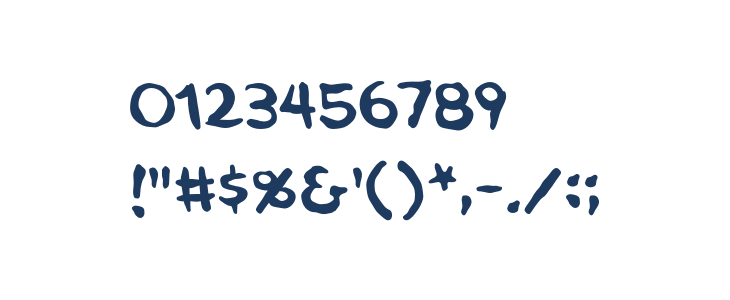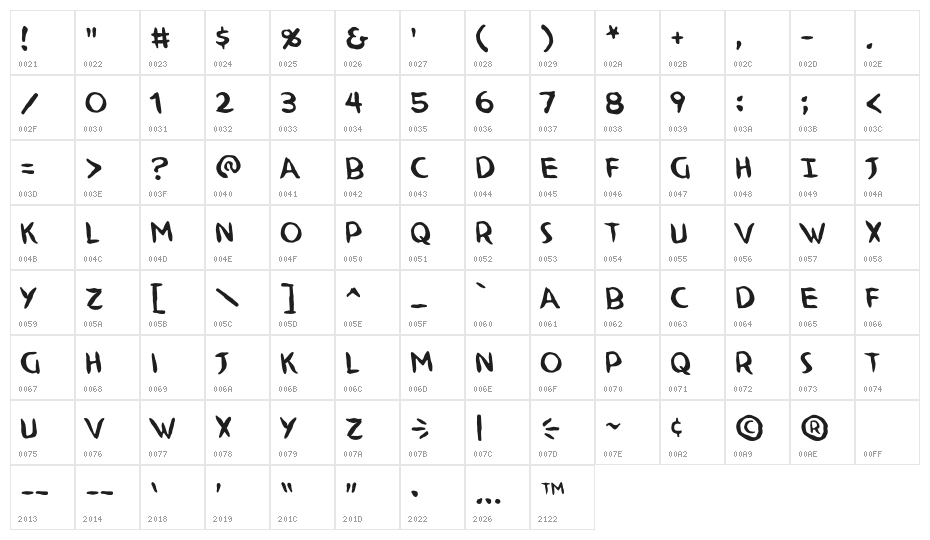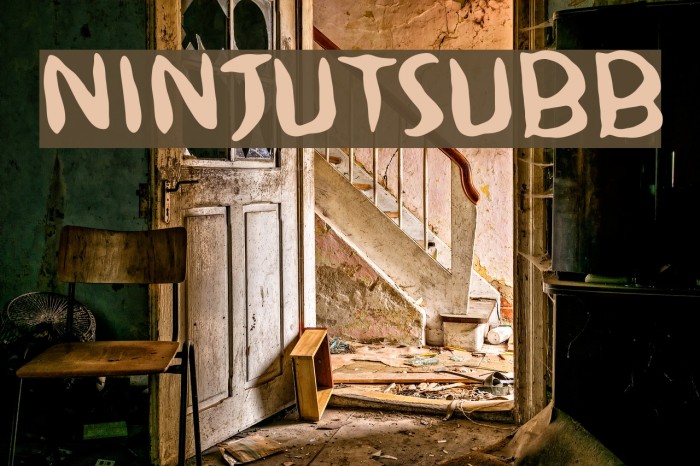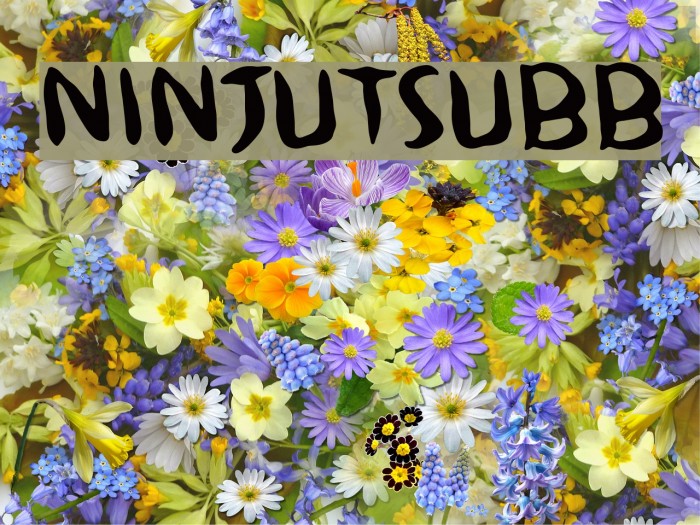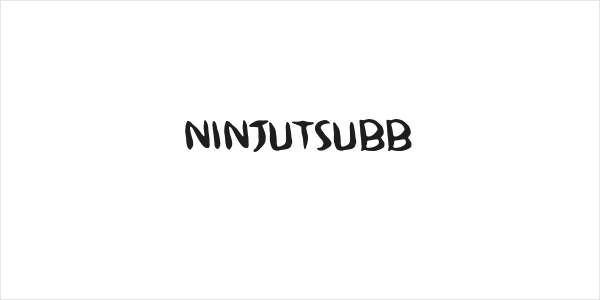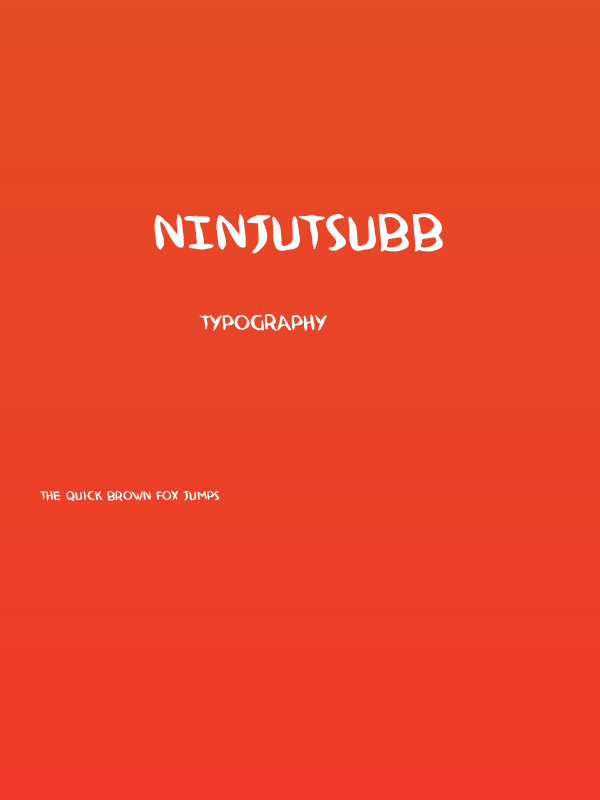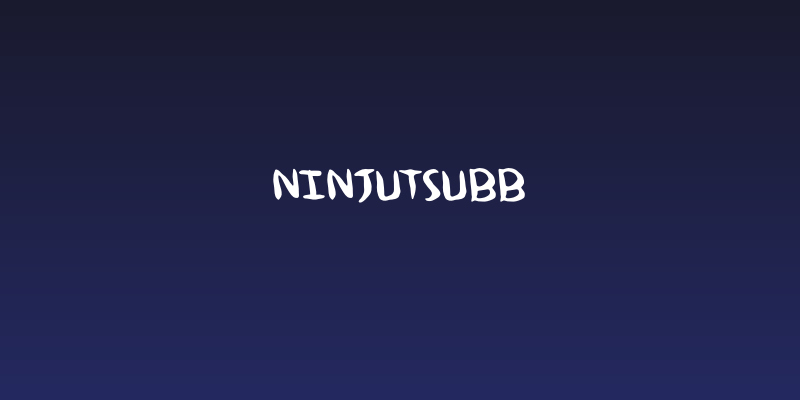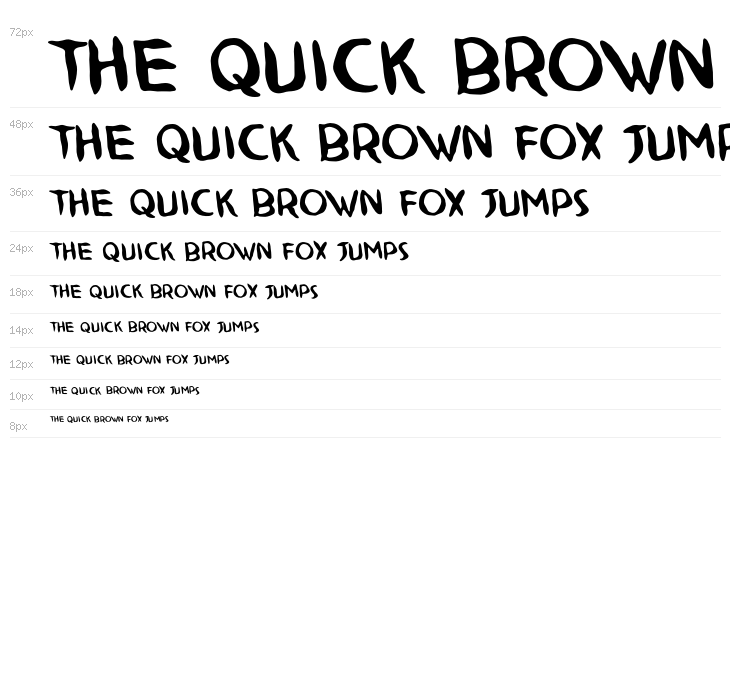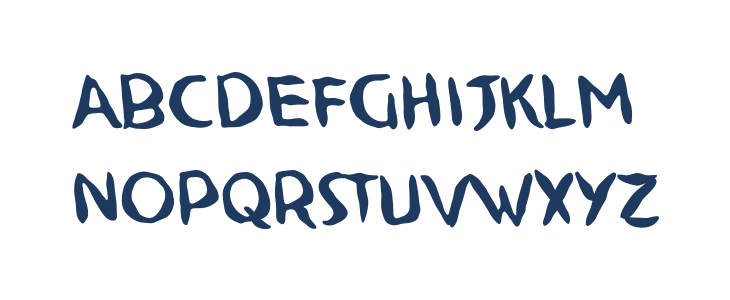
NinjutsuBB Font
NinjutsuBB Description
This font exudes a bold and dynamic style, characterized by its brush-like strokes and slightly irregular shapes. The letters have a hand-drawn appearance, giving them a lively and energetic feel. The uppercase and lowercase characters maintain a consistent style, with rounded edges and varying stroke thickness that adds to the font's expressive nature. The numbers and special characters follow the same aesthetic, ensuring a cohesive look across all elements. This font is ideal for projects that require a personal touch or a sense of movement and creativity.
| Use Case | Logos, Posters, Creative Branding |
| Proposed Projects | Ideal for creative projects such as posters, logos, and branding materials that require a personal and energetic touch. |